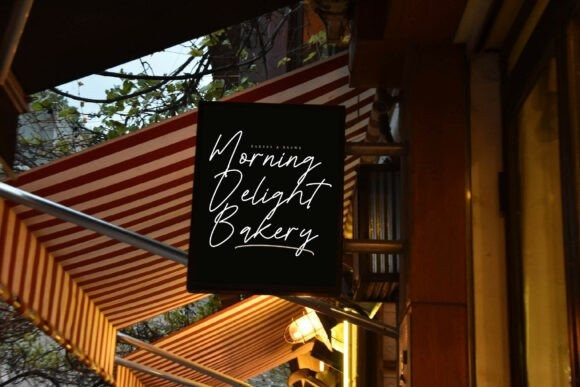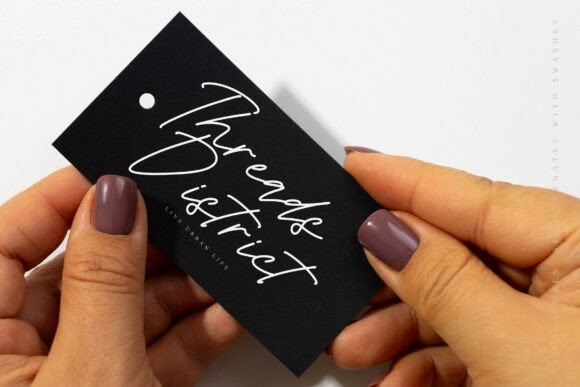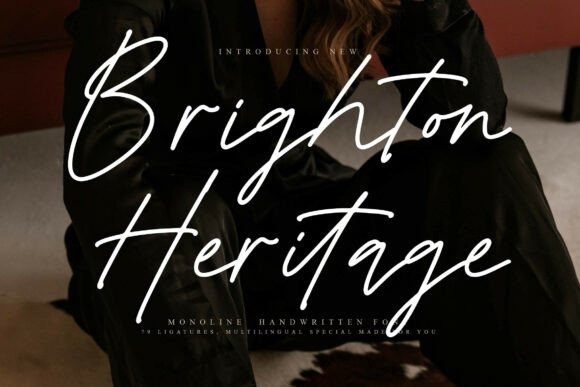
Brighton Heritage Font
Brighton Heritage Font a script font crafted with a flowing and sophisticated style! Each character is uniquely designed to mimic natural handwriting, giving your text a polished, professional look.